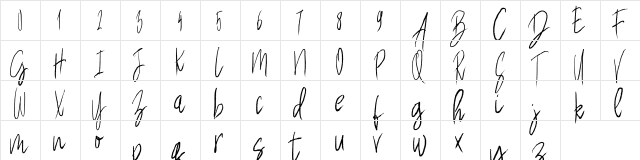
Dreamer Regular
Regular · Analogous Analogous ·
Foundry Analogous
FoundryAnalogous
DesignerAnalogous
Design Context for Dreamer Typeface
Dreamer is a composed and adaptable typeface that performs quietly and consistently across a wide range of design contexts.